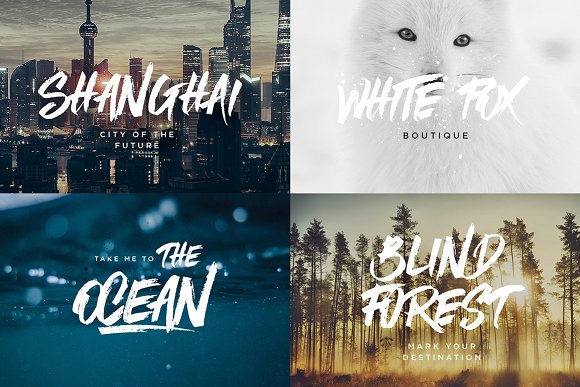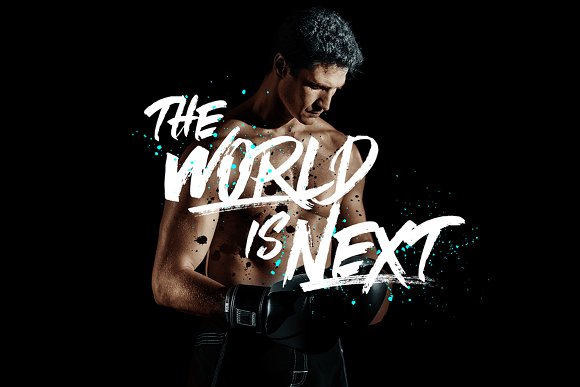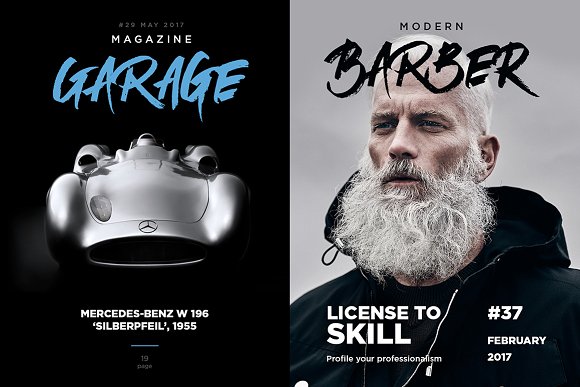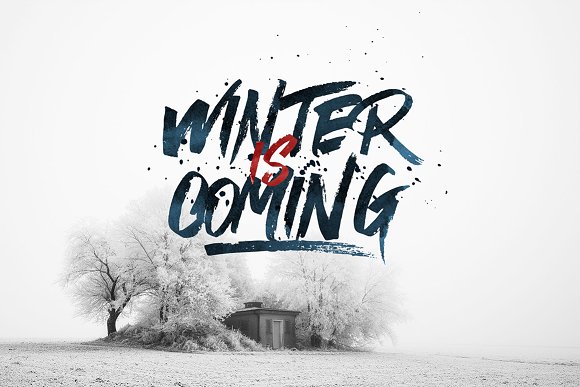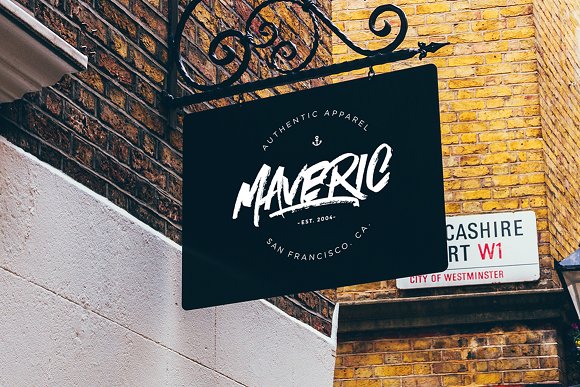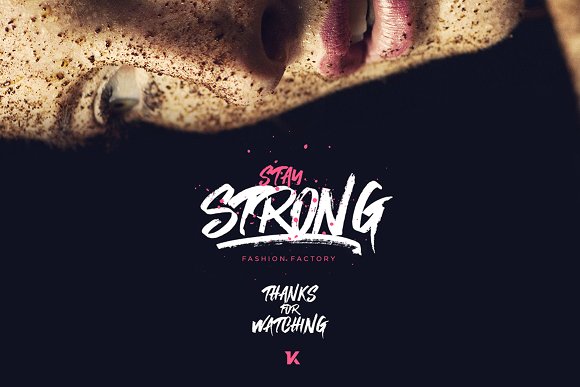
Mystique Font
About Mystique Font
Mystique is a mysterious handwritten brush font created by the talented Kavoon.
The fluid characters with rough edges make Mystique the perfect font for apparel, headlines, magazines and more.